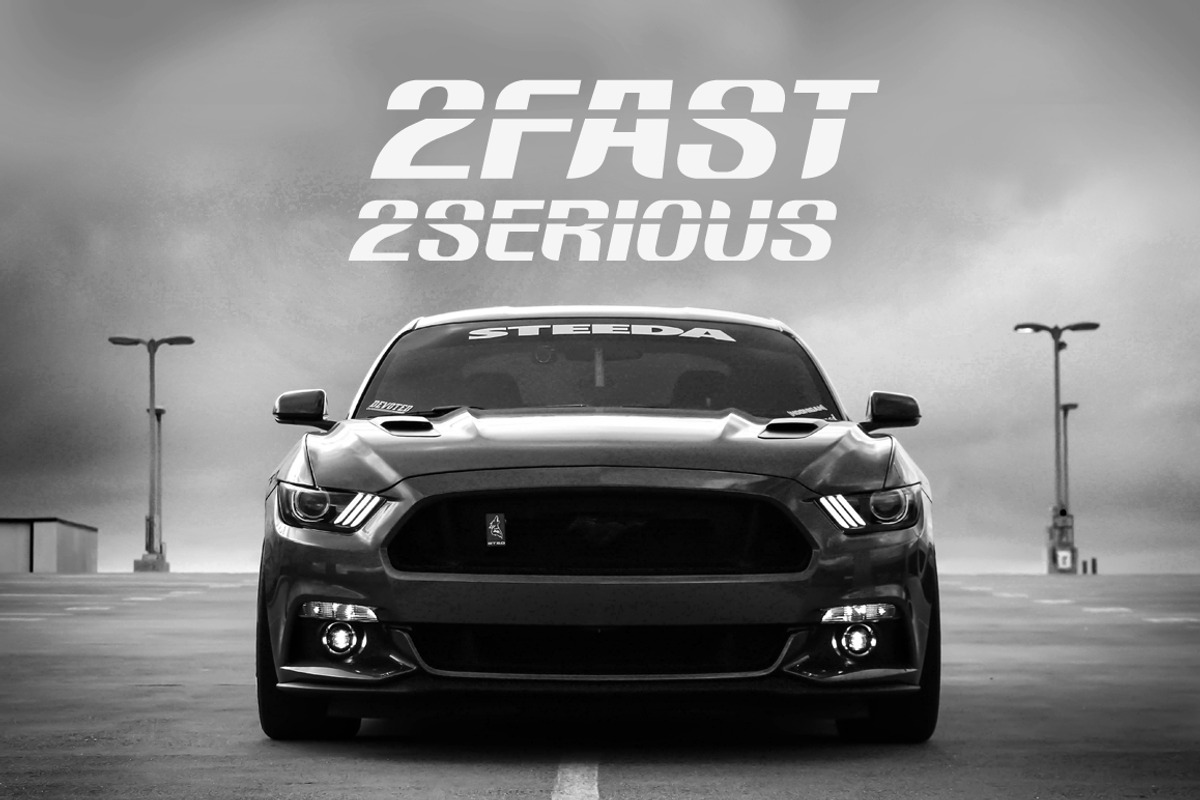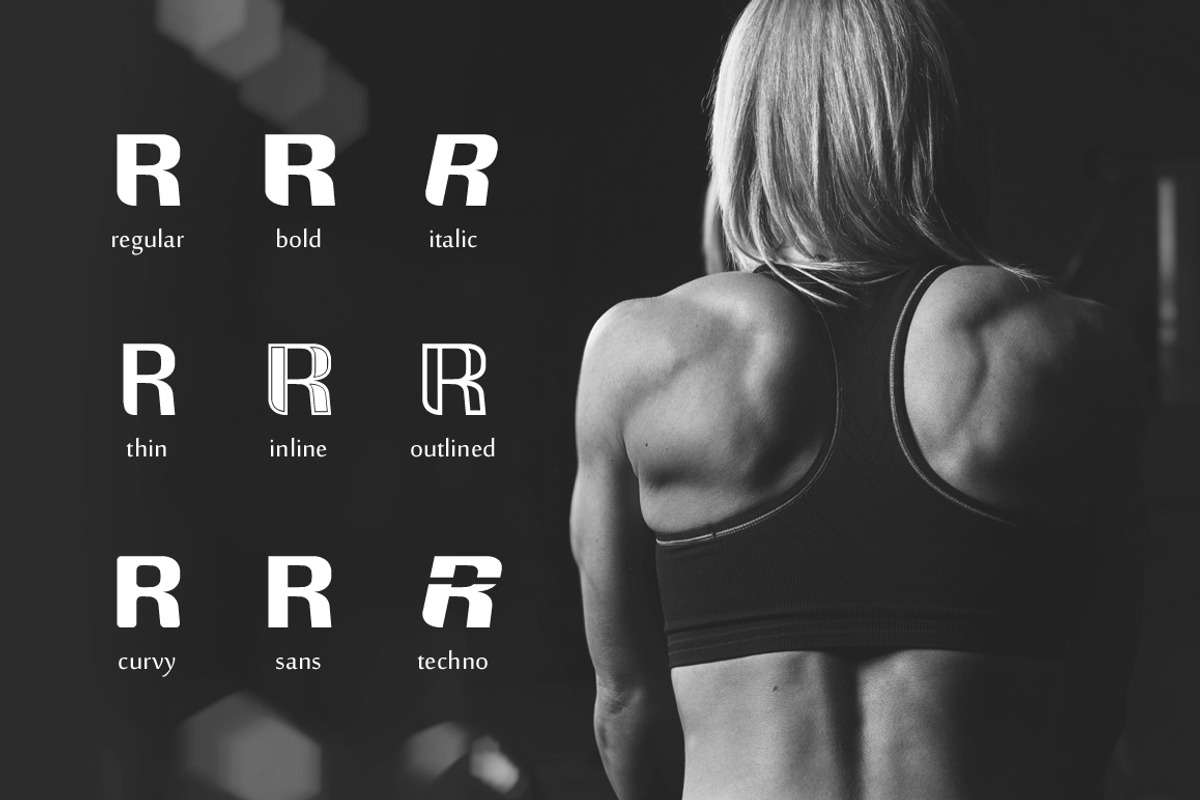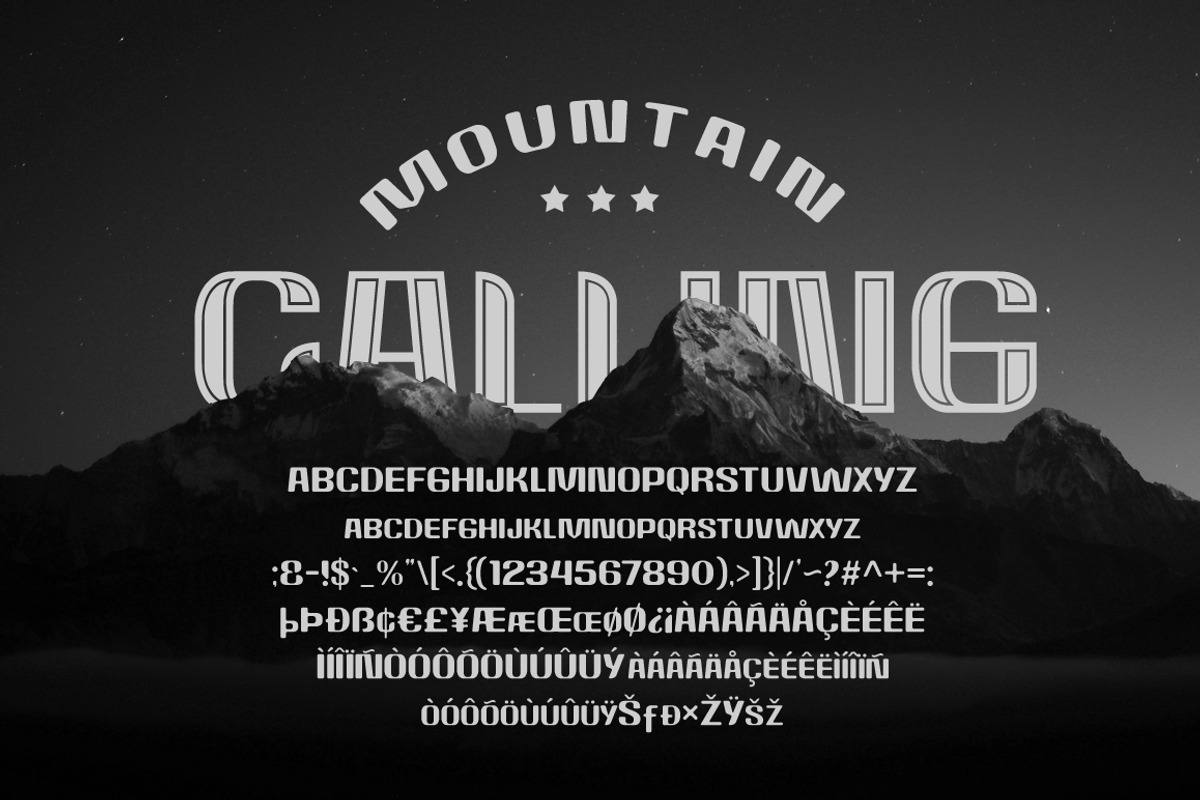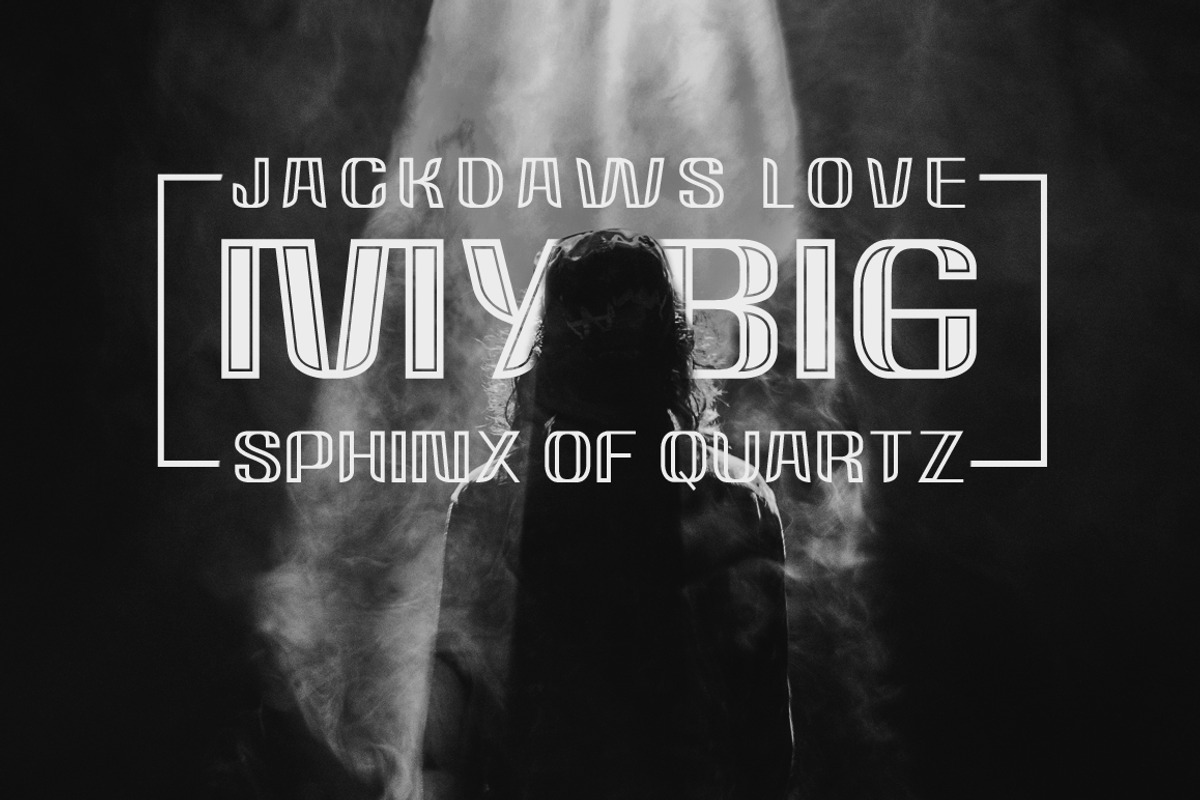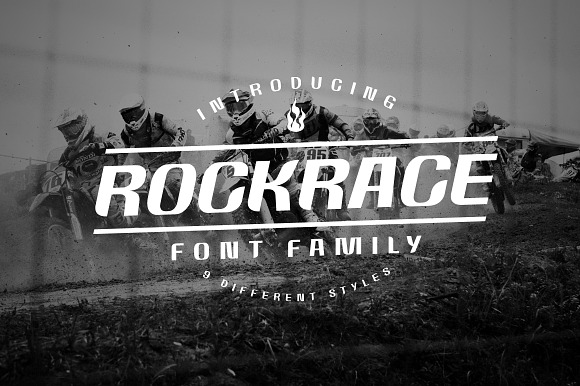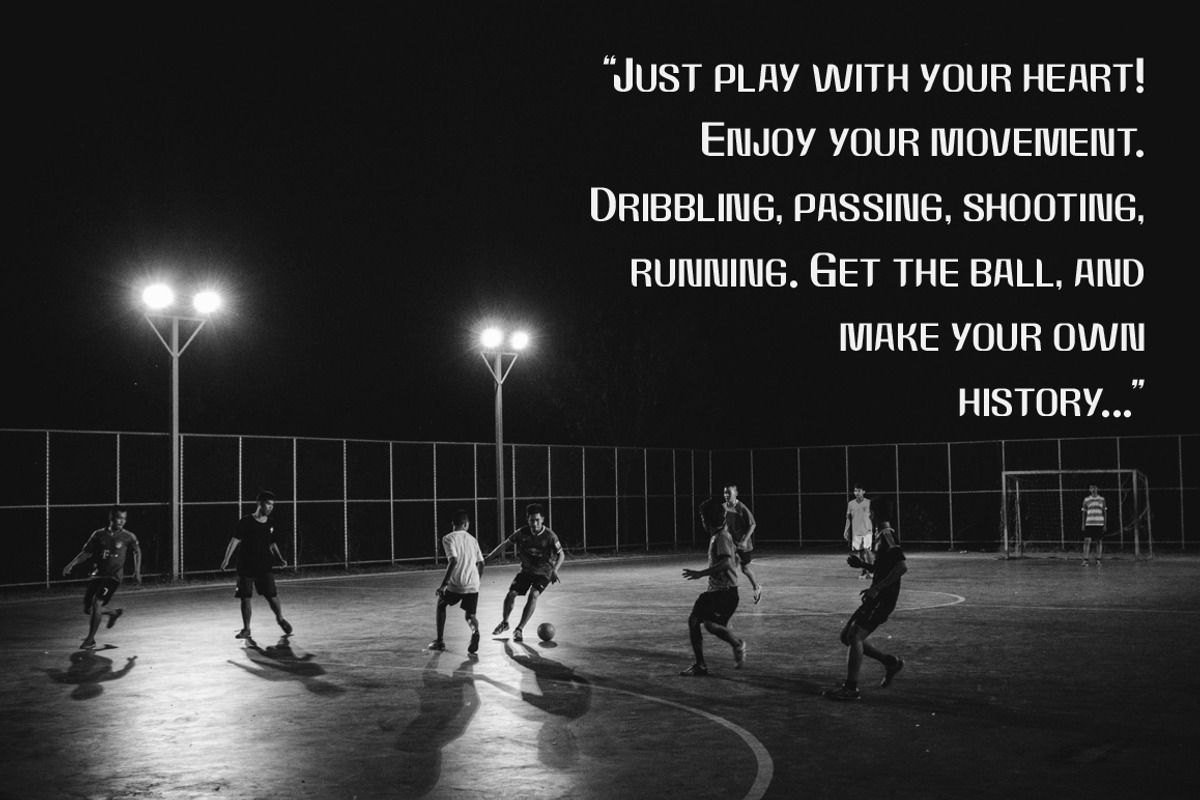
Rockrace Font Family
Introducing our new item, "ROCKRACE". The font family which has 9 different styles that you can combine it as you wish. Recommended for headline or display. Useful for your any design project, especially in sport, techno and minimalism theme.
Basic international language.
- Rockrace Thin
- Rockrace Normal
- Rockrace Italic
- Rockrace Bold
- Rockrace Curvy
- Rockrace Inline
- Rockrace Outlined
- Rockrace Sans
- Rockrace Techno